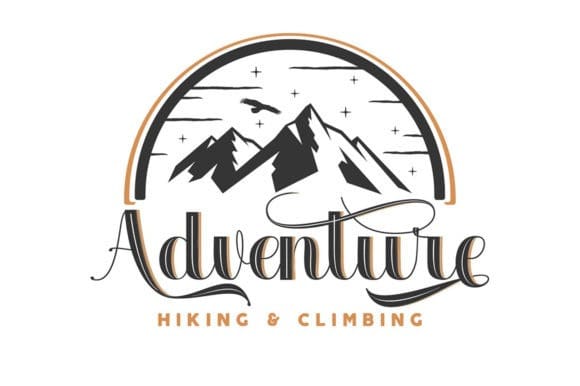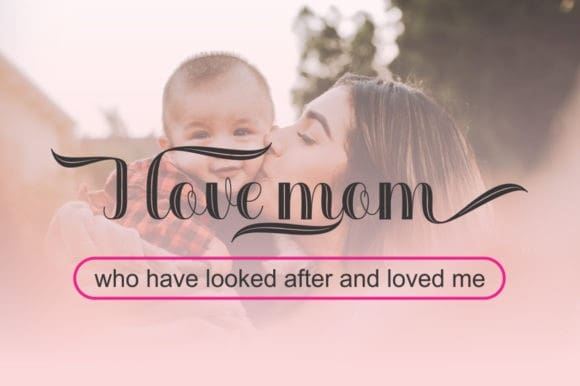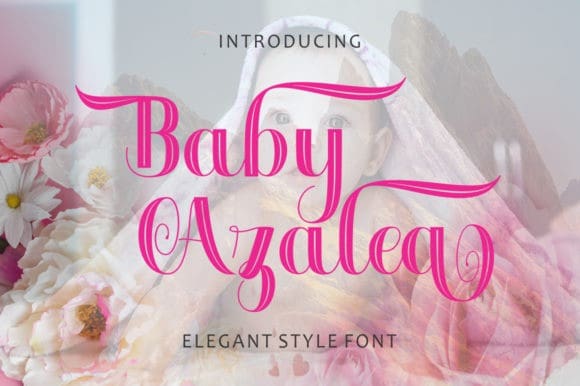
Baby Azalea Font
Baby Azalea Font is an unique handwritten font. Whether you’re using it for crafting, digital designing, presentations, or greeting card making, it’s perfect!
Fall in love with its incredibly versatile style and use it to create spectacular designs!